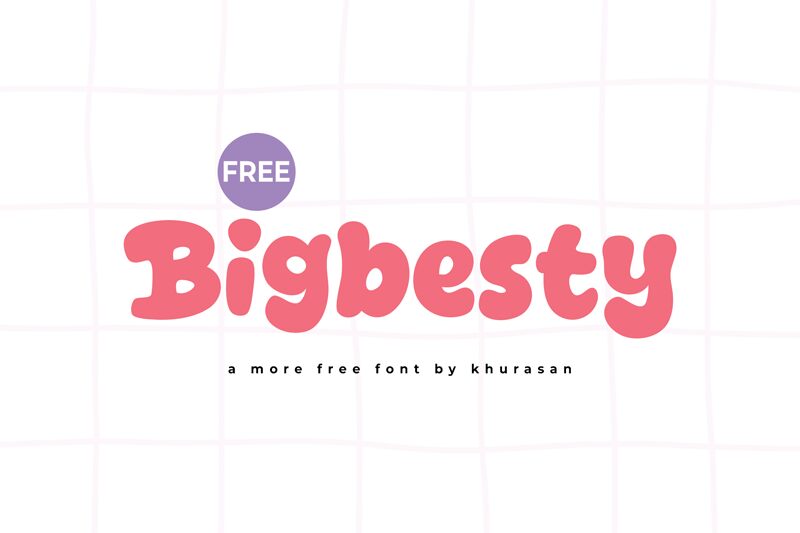
Bigbesty
Bigbesty font by Khurasan is a free bold cartoon font. Its blobby, rounded shapes feel squishy and upbeat, with thick, inky strokes and soft edges that read like puffed lettering straight off a sticker sheet. The rhythm is bouncy without getting messy, so headlines pop while staying friendly and easy to scan.
Using Bigbesty, playful projects instantly gain volume and charm—think kids’ packaging, birthday invites, mobile game titles, toy logos, classroom posters, and YouTube thumbnails. This free font loves bright color, works beautifully at large sizes, and stays legible on small tags and stickers. Pair it with a light, neutral sans for body copy, and give the letters a touch of breathing room to let those pillowy curves shine.